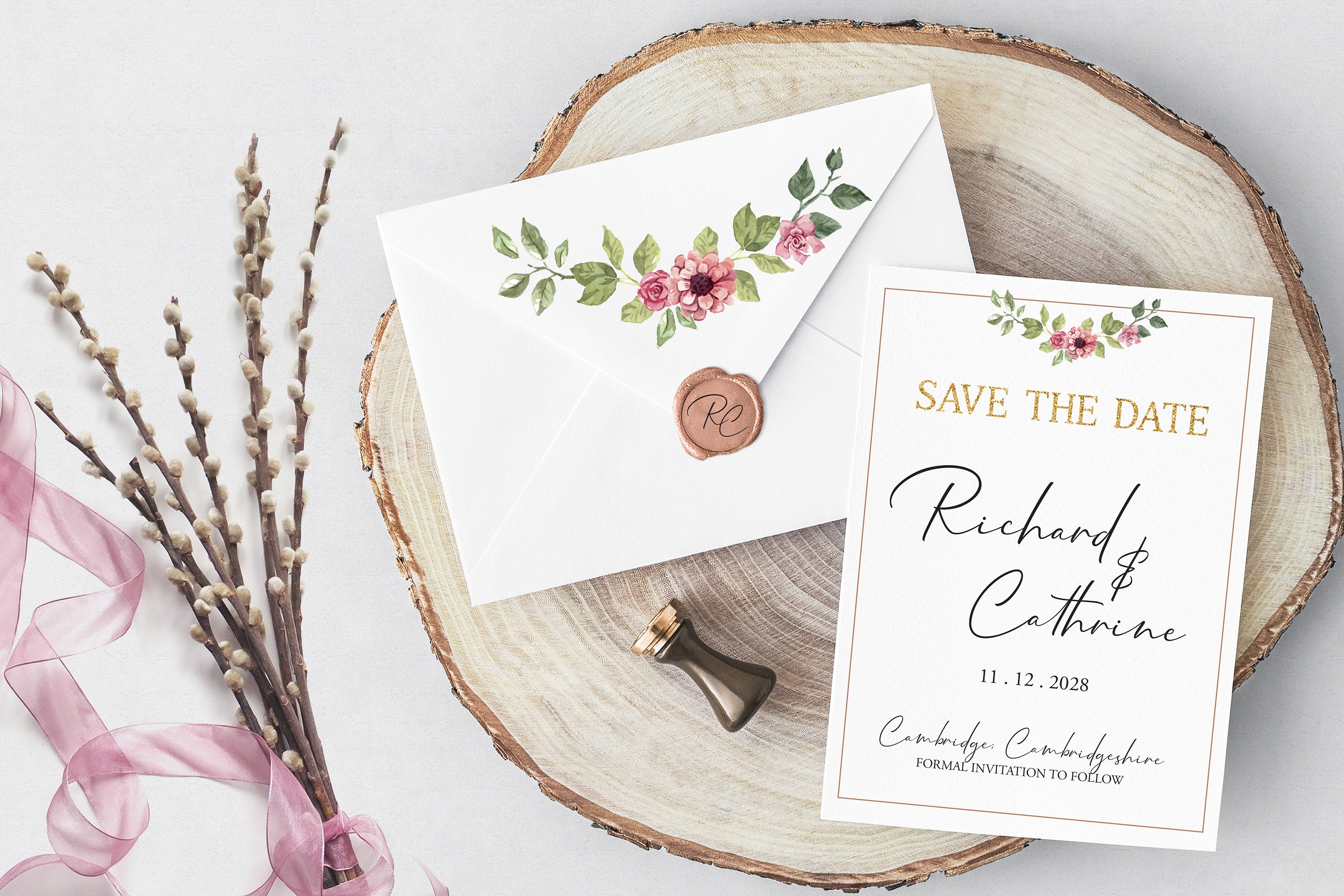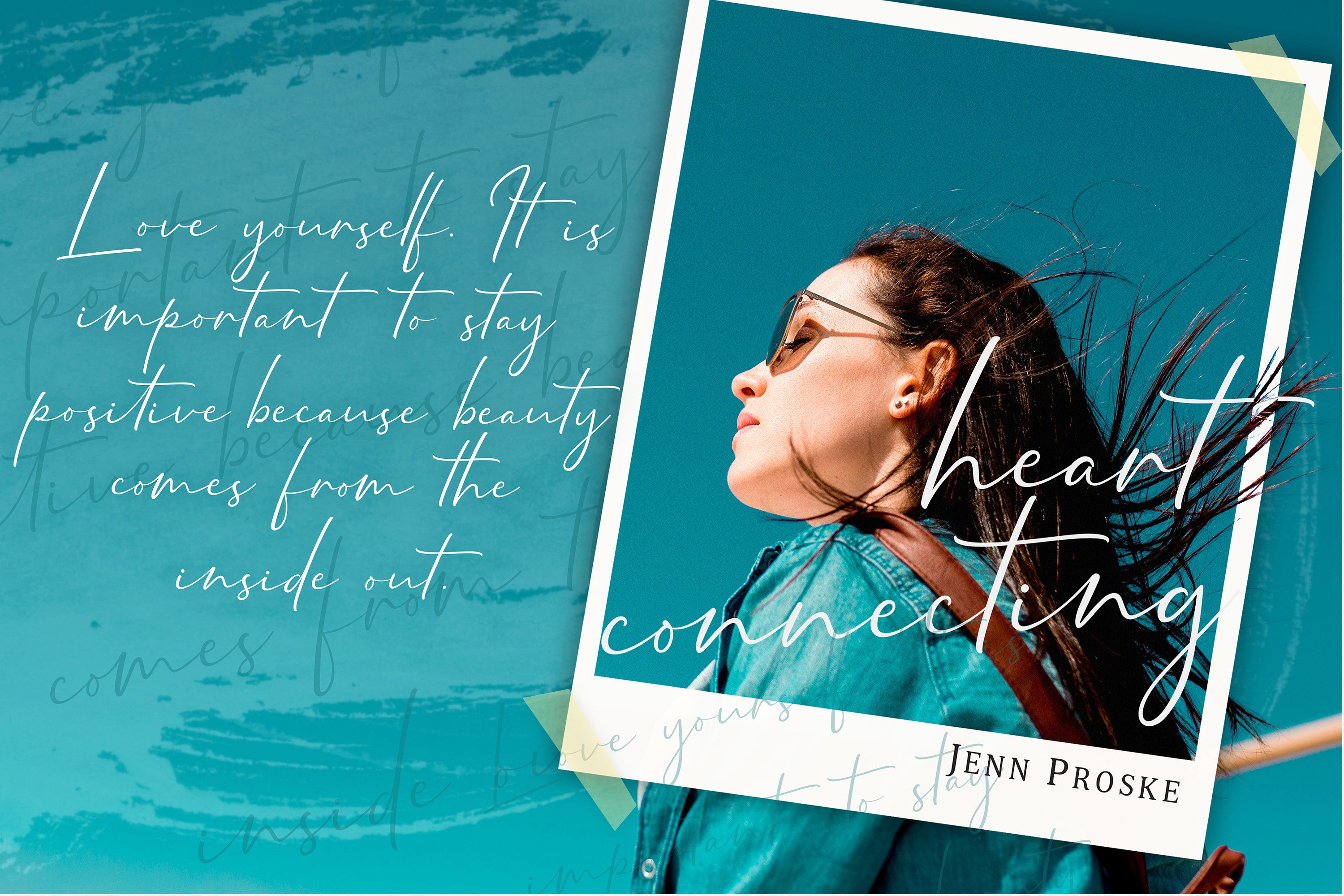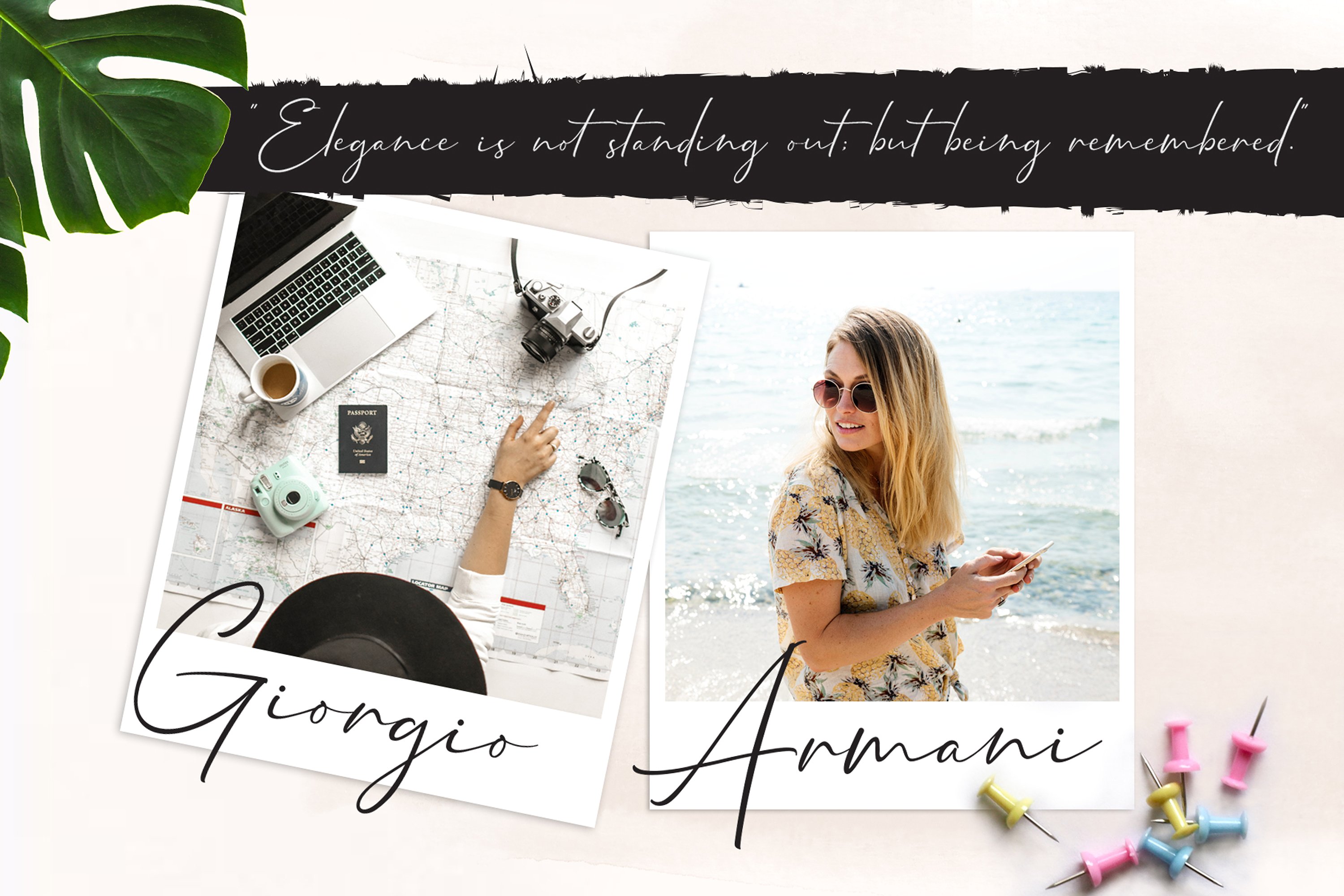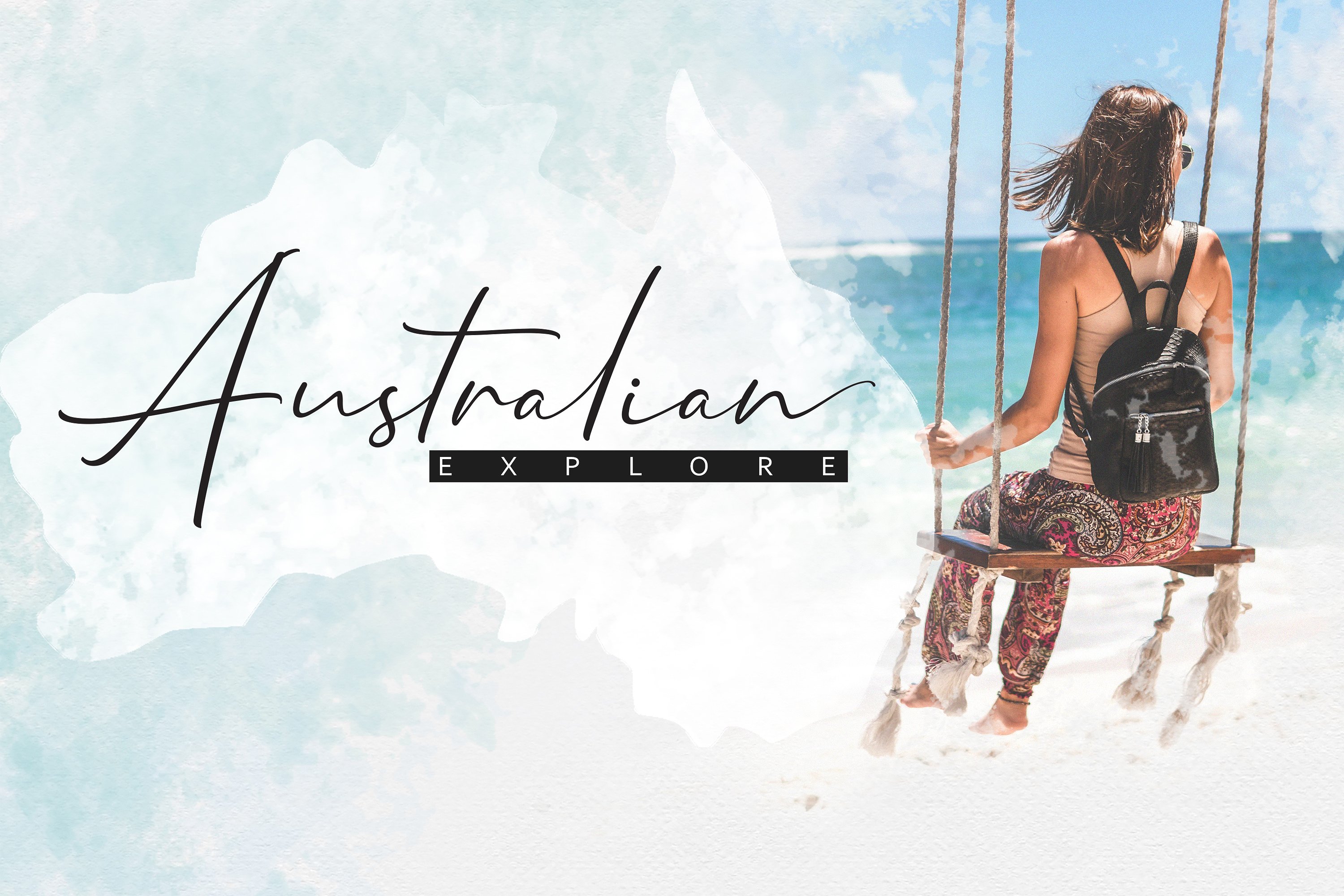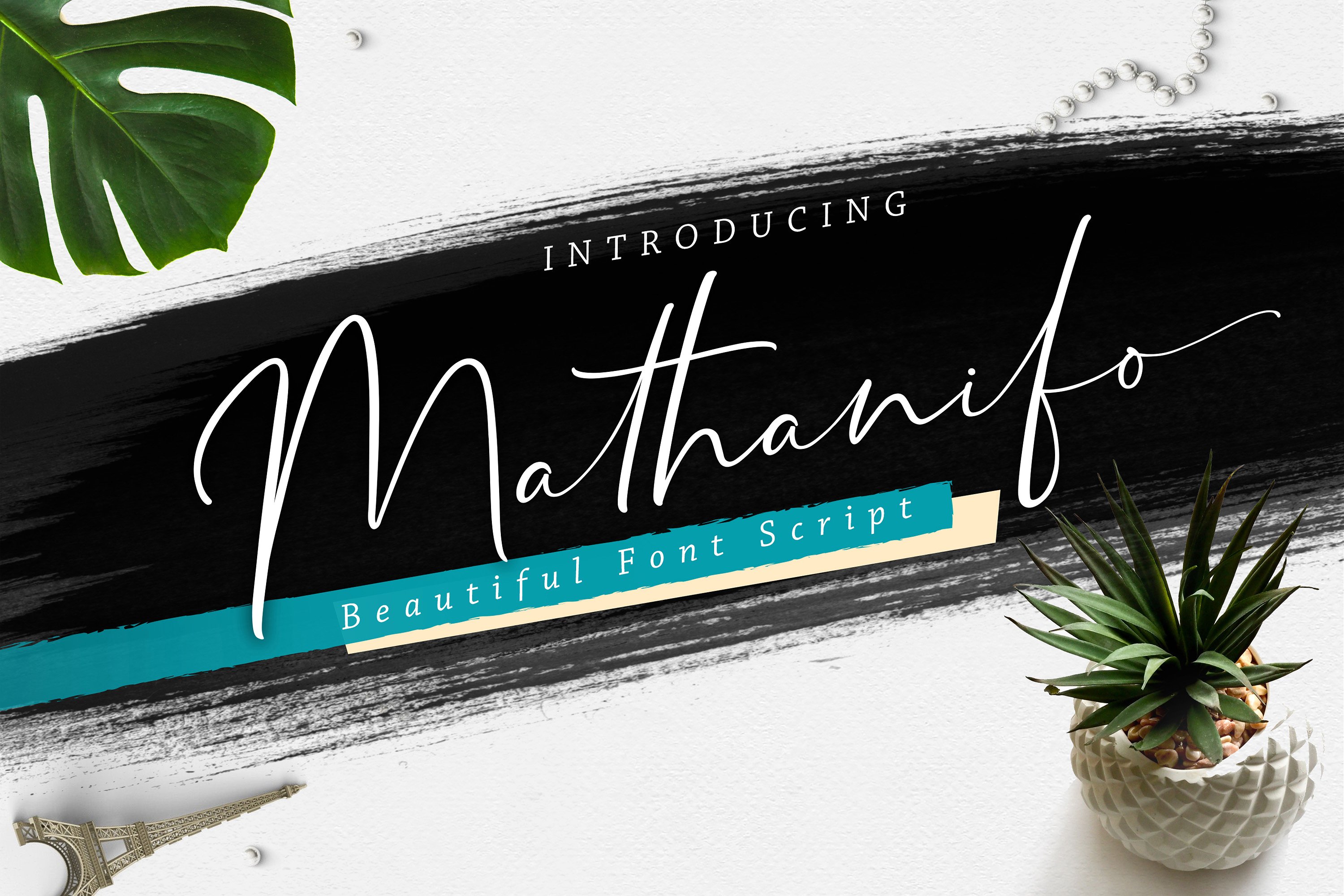
Mathanifo Script Font
Mathanifo Script Font – Free Demo
I am happy to introduce you to a beautiful font script, hope to make you satisfied. Introducing Mathanifo Font! It is designed and shared by Cotbada_studio. Mathanifo is a unique, cool and modern handwritten font. It’s hand look style makes it perfect for use in all your design projects be it logos, signatures, labels, packaging design, blog headlines.